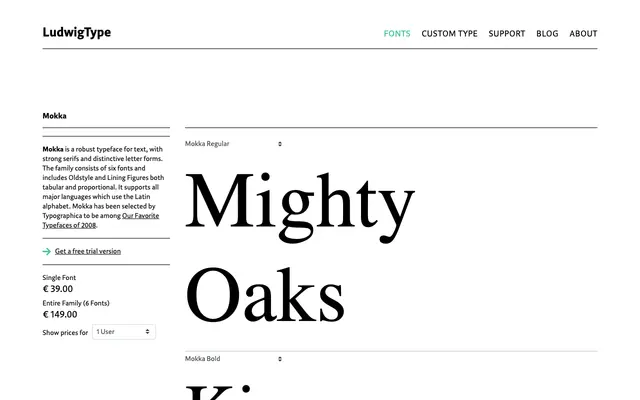
Mokka
A compact two-weight book serif with small caps and italics, designed for sustained text setting.
Mokka offers Regular and Bold weights, each accompanied by an italic and a small caps cut, giving six styles in total. The family is oriented towards continuous reading, with the small caps suggesting care for typographic hierarchy in body text contexts. It sits comfortably in editorial, book and document work where a dependable, unfussy serif is required.
Mokka presents a classic book serif character with regular, italic and small caps cuts across two weights, consistent with transitional serif conventions suited to sustained reading.